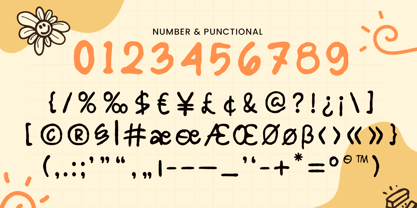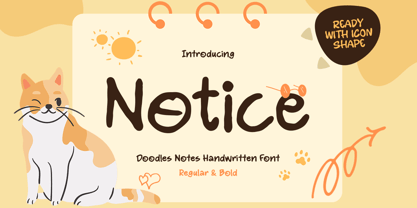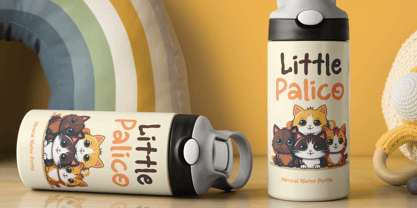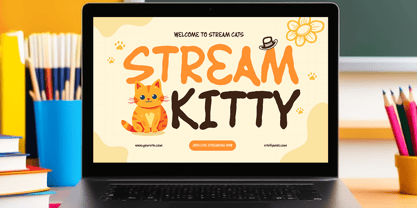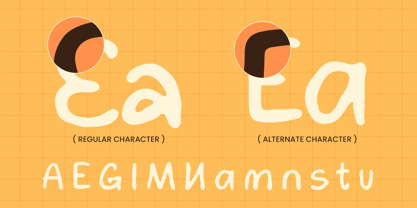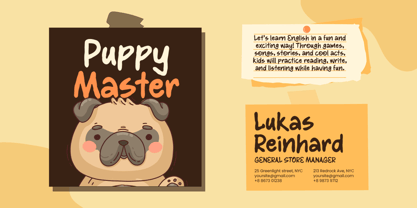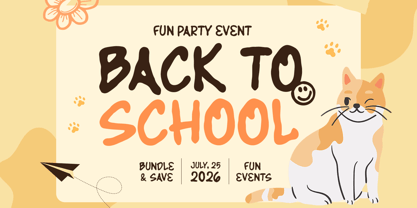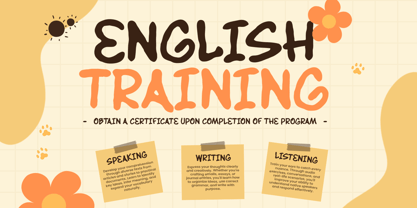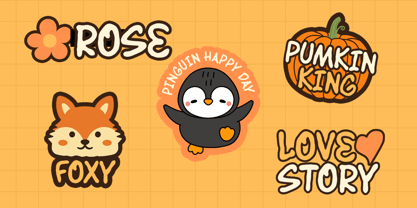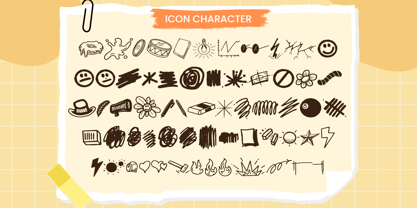
NOTICE is a doodles notes handwritten font designed to capture the charm of spontaneous writing and playful sketches. With its natural strokes and imperfect lines, NOTICE brings an authentic handwritten feel that adds warmth, personality, and creativity to any design.
Perfect for journaling, planners, school materials, kids branding, and creative projects, NOTICE delivers a fun and friendly vibe. Whether you're designing notebooks, stickers, social media content, or casual branding, this font creates an approachable and expressive visual tone that feels personal and engaging.
Inspired by everyday notes, doodles, and quick sketches, NOTICE is ideal for designers looking to add a relaxed, human touch to their work. It blends creativity and readability, making it versatile for both digital and print applications.
NOTICE – Handwritten Doodles Font Features
Playful handwritten doodle-style letterforms
Perfect for journaling, notes, and kids-themed designs
Casual and friendly character design
Includes uppercase, lowercase, numerals, and punctuation
Great for print and digital creative projects
Natural strokes for authentic handwritten feel
Works well for planners, stickers, and social media
Multilingual Support
Bring playful personality to your designs with NOTICE – a handwritten font made for creative expression and everyday charm. ✏️